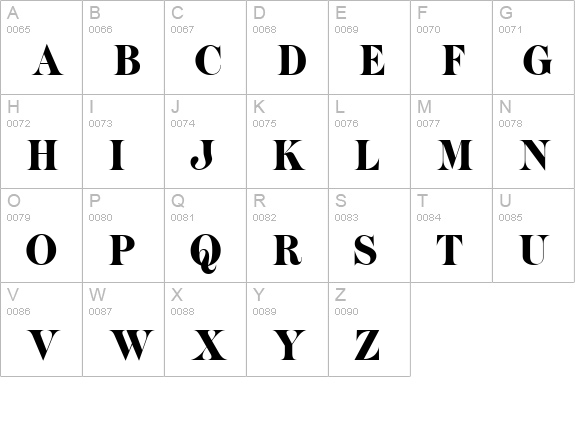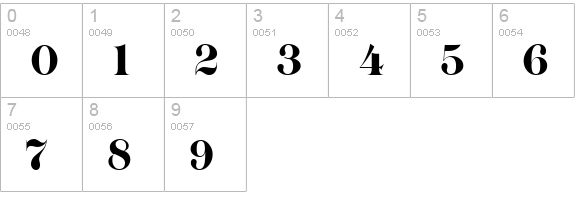
Milano Regular is the standard, neutral variant in the Milano typeface family \xE2\x80\x94 well suited to general body text, paragraphs, and standard typographic work.
Milano Regular font is a modern and elegant typeface that exudes sophistication and style. With its clean lines and sharp edges, this font is perfect for a variety of design projects, from branding to editorial layouts. The versatility of Milano Regular makes it a great choice for both digital and print applications. What sets Milano Regular apart is not just its sleek design, but also the fact that it is available for free! Yes, you read that right - you can download Milano Regular for free at FontsMarket.com. This means you can add a touch of class to your projects without breaking the bank. Whether you're working on a website, a logo, or a poster, Milano Regular is sure to make a statement. Its timeless appeal and effortless legibility make it a must-have font for any designer looking to elevate their work. Download Milano Regular today and see the difference it can make in your designs!